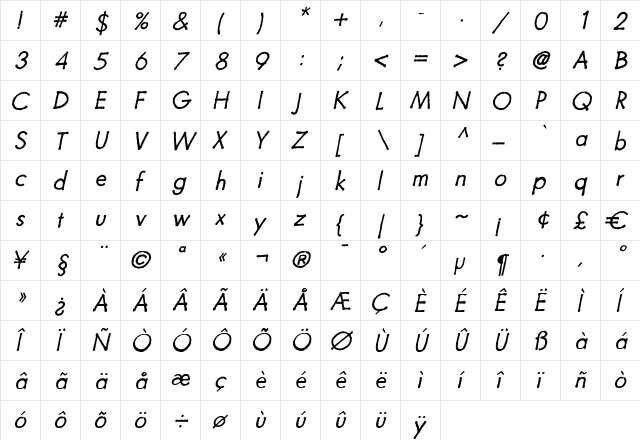
Futuramano Light Italic
Design Context for Futuramano Light Typeface
Futuramano Light channels digital-age aesthetics through its sharp, structured letterforms — ideal for brands that want to signal innovation. The slanted form adds forward momentum and visual energy. The delicate stroke weight brings airiness and refinement to layouts.